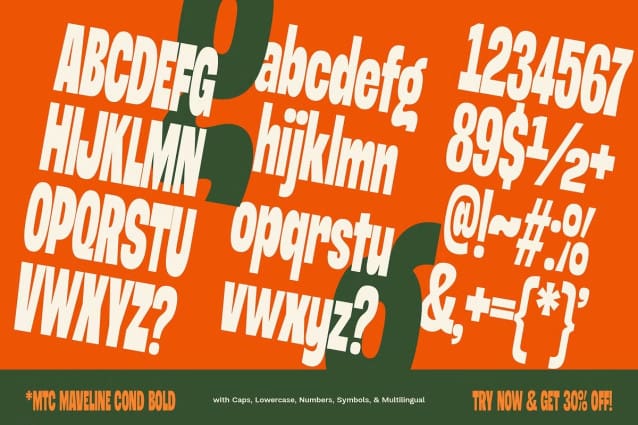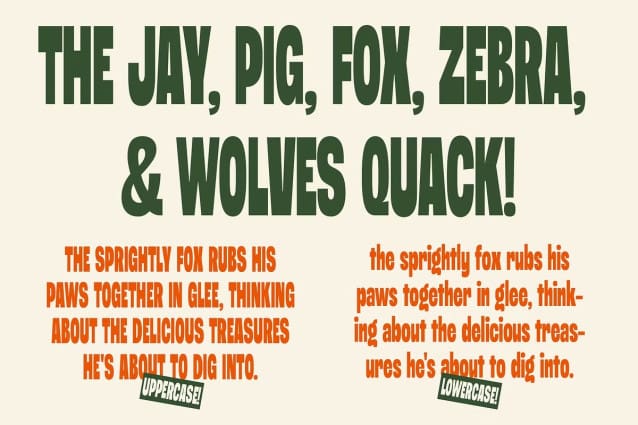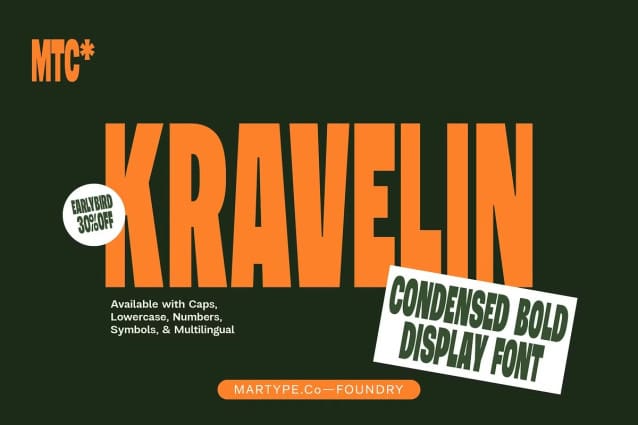
MTC Kraveline Font
MTC Kraveline Font – A bold, condensed display typeface, narrow font for engaging headlines and displays. Ideal for designers looking for a modern and dramatic look with a retro and classic feel. Transform your projects with this dark, tight, condensed typeface that grabs attention. Available in over 200 languages ​​with Latin script plus hieroglyphs.